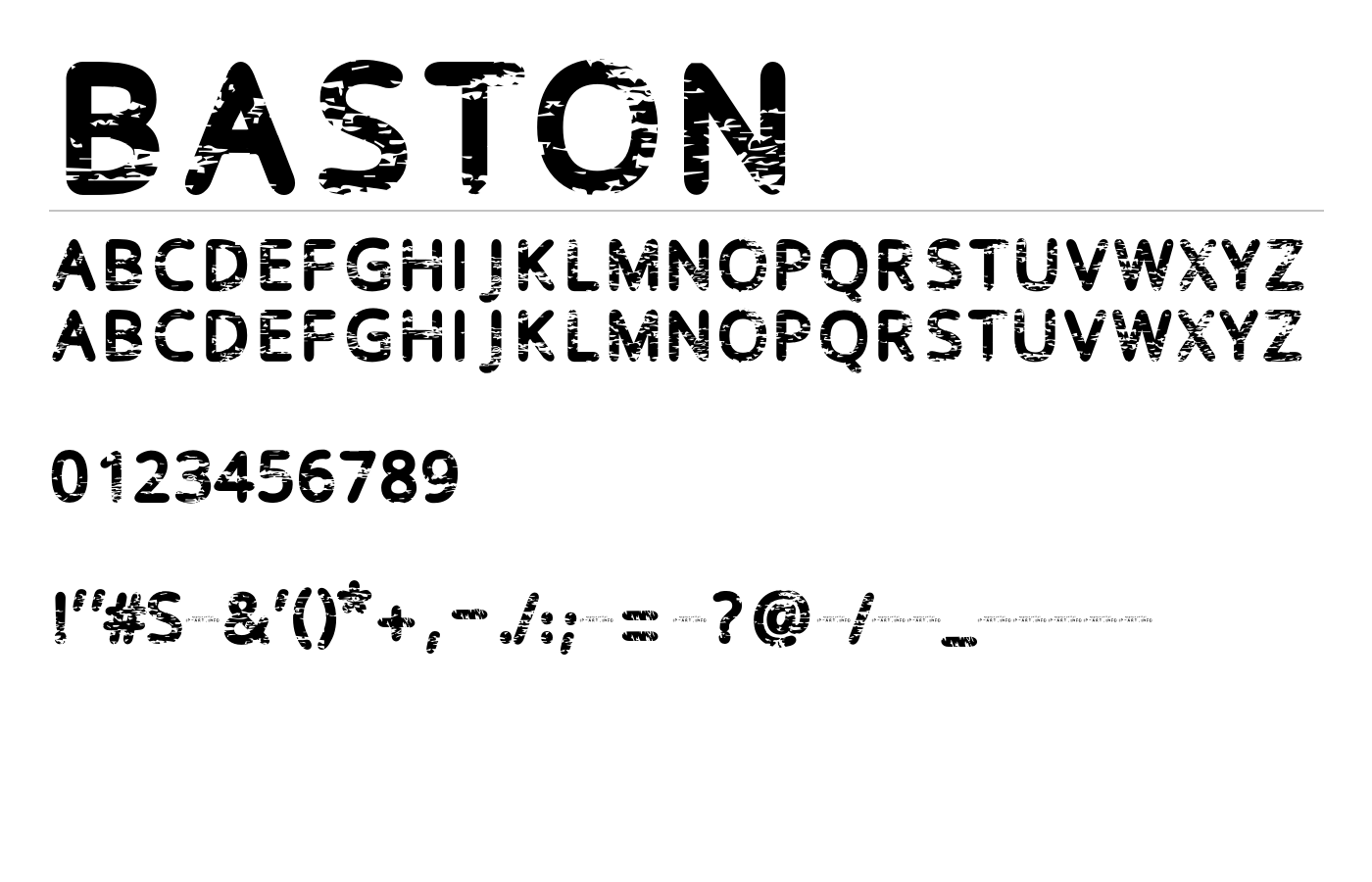
Baston is a bold, condensed sans serif font featuring a distressed, grunge texture that adds a weathered, urban character to its clean, geometric letterforms. Its high-impact style is perfect for edgy branding, posters, or designs seeking a raw, rebellious vibe. This font works best in headlines or display settings where strong visual attitude is desired.
Baston Font
About Baston Font
| Font family | Baston Font |
| Designer | Iordanis Passas |